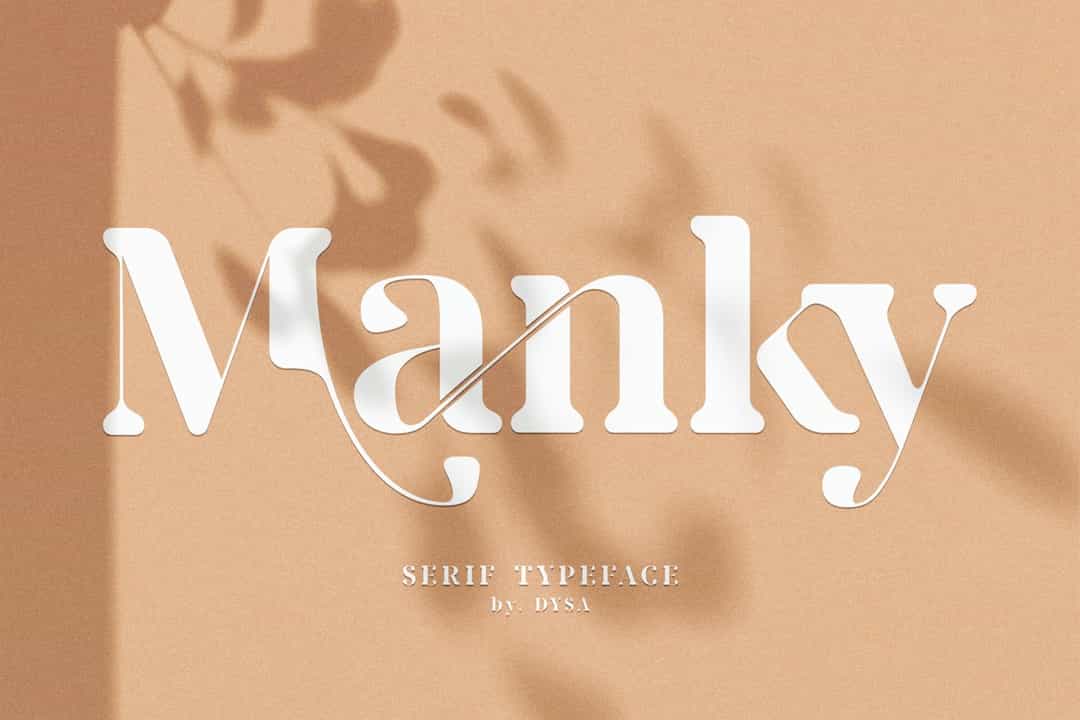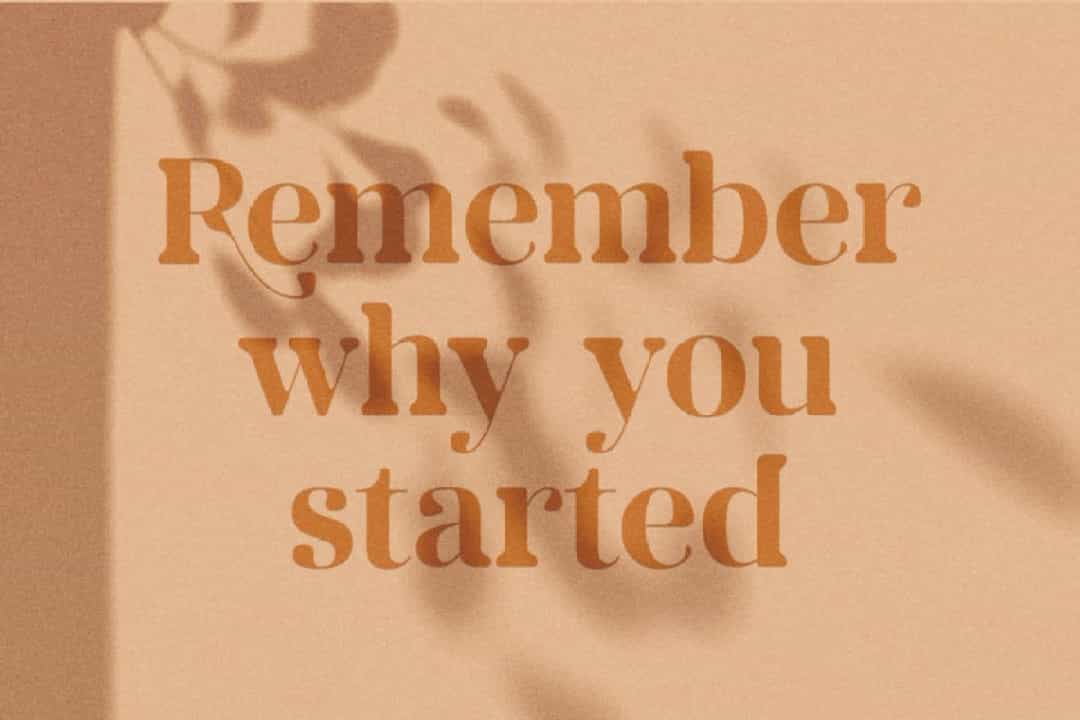
Manky is a serif font which is well suited for branding purposes as well as business projects. This font comes with soft corners to provide the feel of a hand made design and is best suited for anyone looking for clean cut, modern, elegant minimalistic designs.